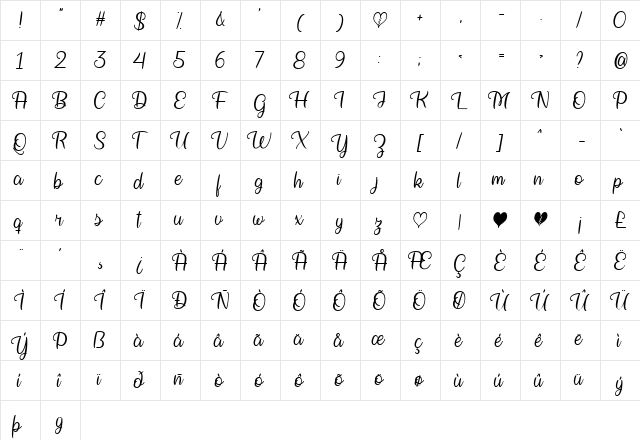
Bringing on the Heartbreak Regular
| Designer | Misti's Fonts |
Design Context for Bringing on the Heartbreak Typeface
Bringing on the Heartbreak is a composed and adaptable typeface that performs quietly and consistently across a wide range of design contexts.